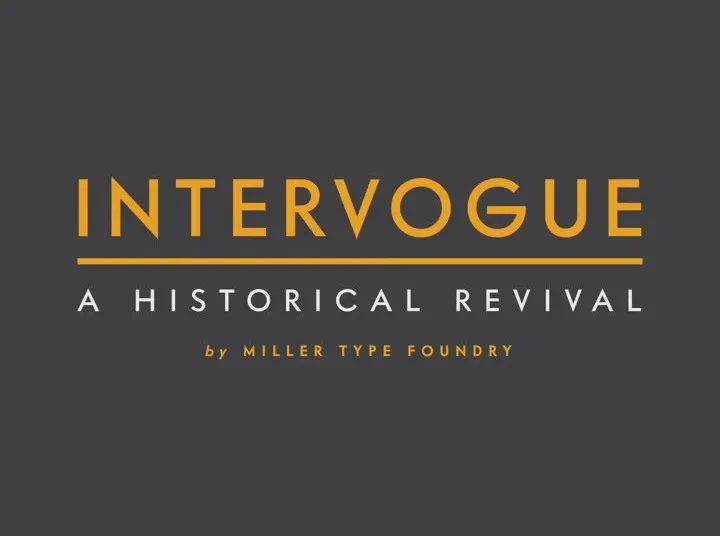
Intervogue Font
Intervogue Font is a warm and friendly sans-serif typeface conserving the original quirkiness of the collection. Vogue had many unique quirks such as its distinctive G, that striking Q with a vertical tail, and many others.
Almost ninety years later there has been no decent digital revival of this wonderful typeface… until now. Intervogue brings this classic to life in the modern age. Seven weights complete with true obliques and an alternate cut give Intervogue the versatility to be a true workhorse.
Intervogue Sans Font Family